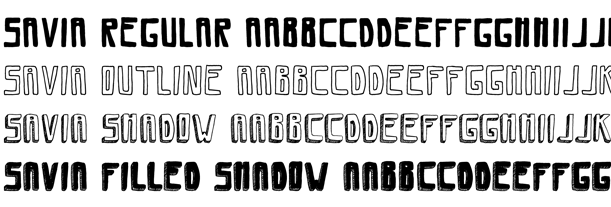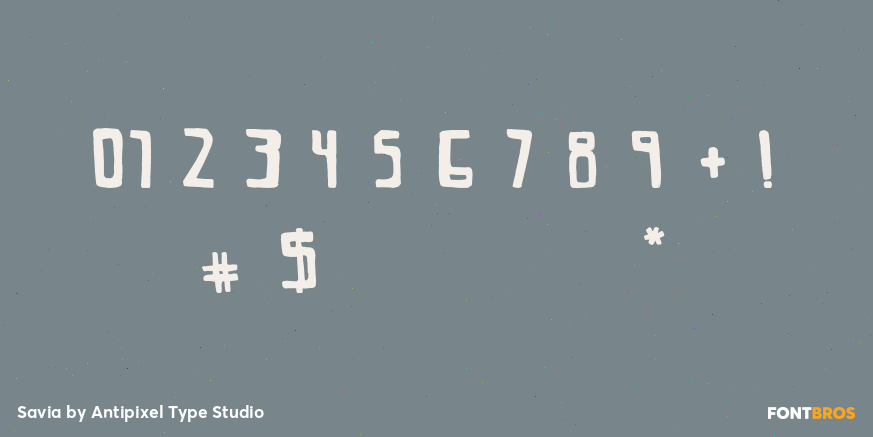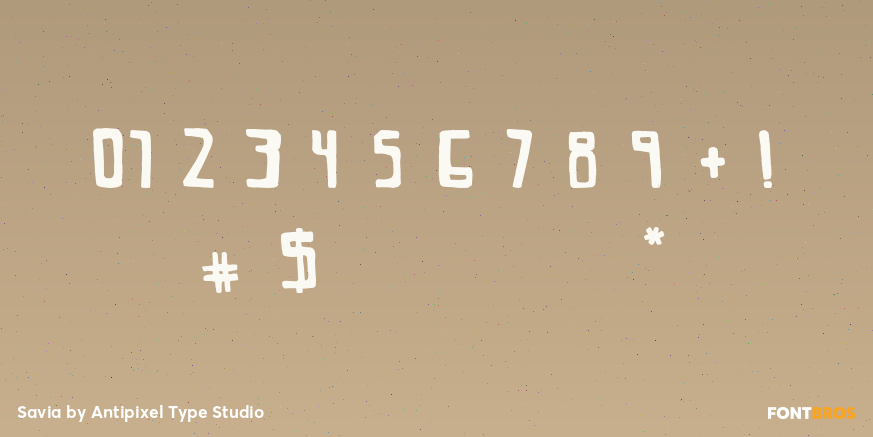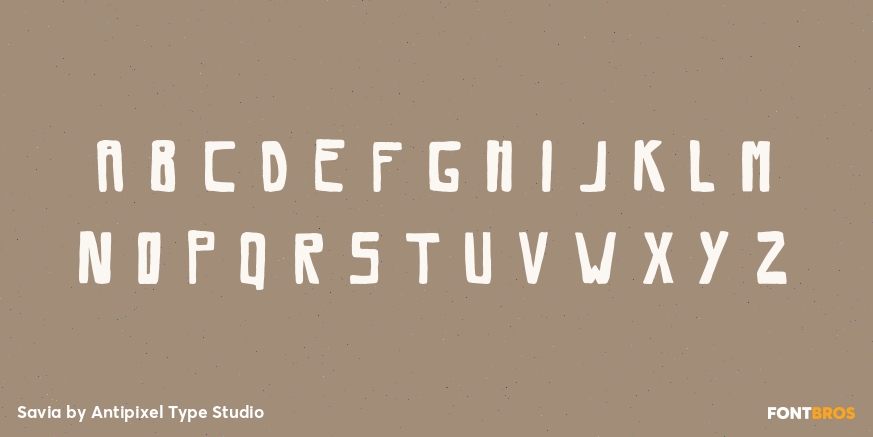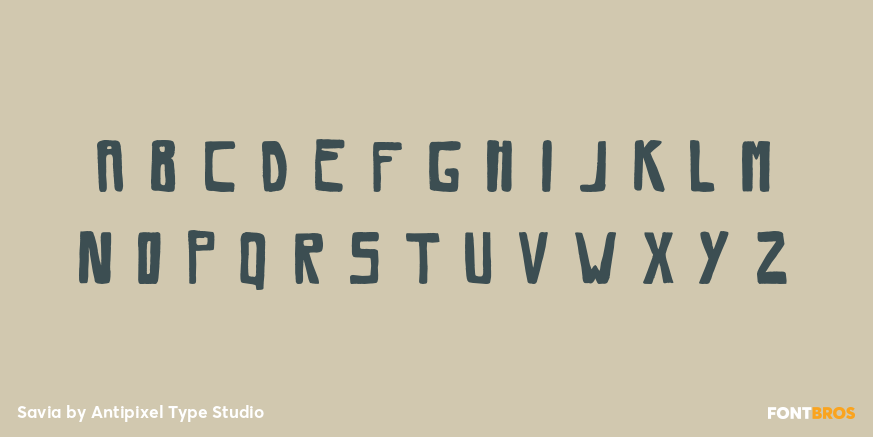
Savia
This 4-style family from Antipixel Type Studio includes Savia Regular, Outline, Shadow, and Filled Shadow, giving you a flexible set of looks for bold headlines and graphic-forward layouts. It feels especially well suited to posters, branding, signage, packaging, social graphics, and other display work where a condensed, contemporary letterform can do the heavy lifting.
If you want a type family that balances minimal structure with standout visual effects, this one offers a strong mix of clean modern form and layered display personality.